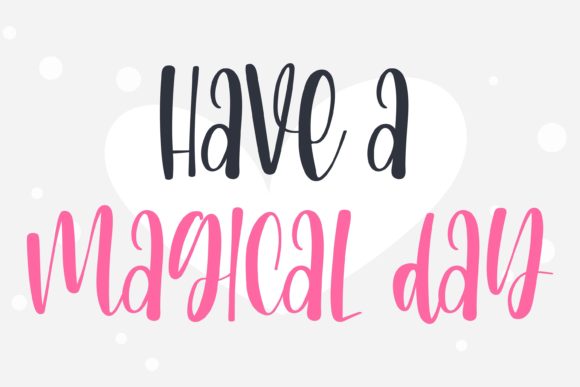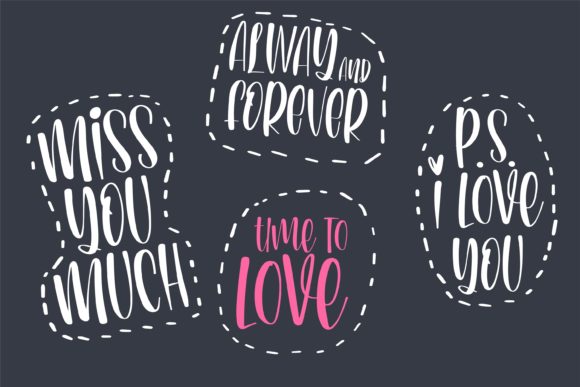
Be My Valentine Font
db-ku.com - Script & Handwritten -- Be My Valentine feels equally delicate and refined. It looks lovely on wedding invitations, thank you cards, quotes, greeting cards, logos, business cards, and every other design which needs a customized touch.